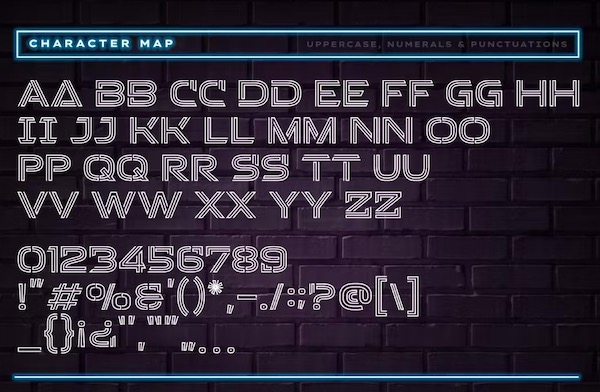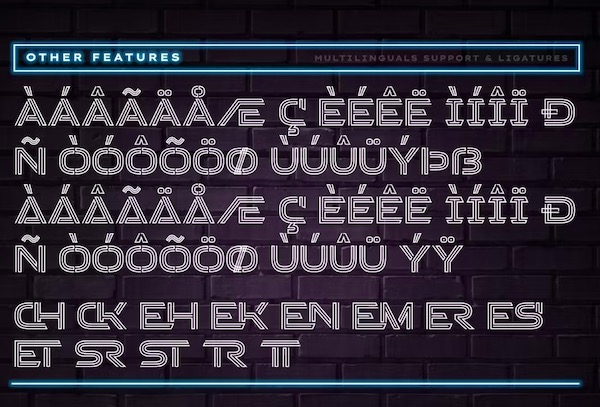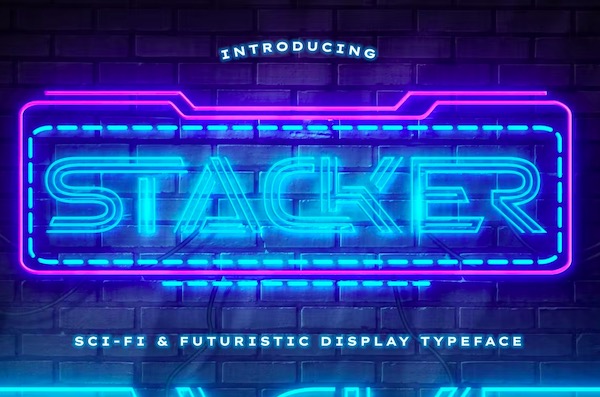
Stacker Font is a luxury Futuristic Neon Sci-Fi typeface that was created for futuristic style designs. And it can make your logotype as well as other projects more interesting. This display font is inspired by real-world neon signs, it features minimal letter shapes with smooth rounded corners and, true to real neon tubes, strictly uses lines with open start and endpoints. This font is perfect for adding your own glowing light effects or can be used to design real-world neon signs.
Stacker Display Font